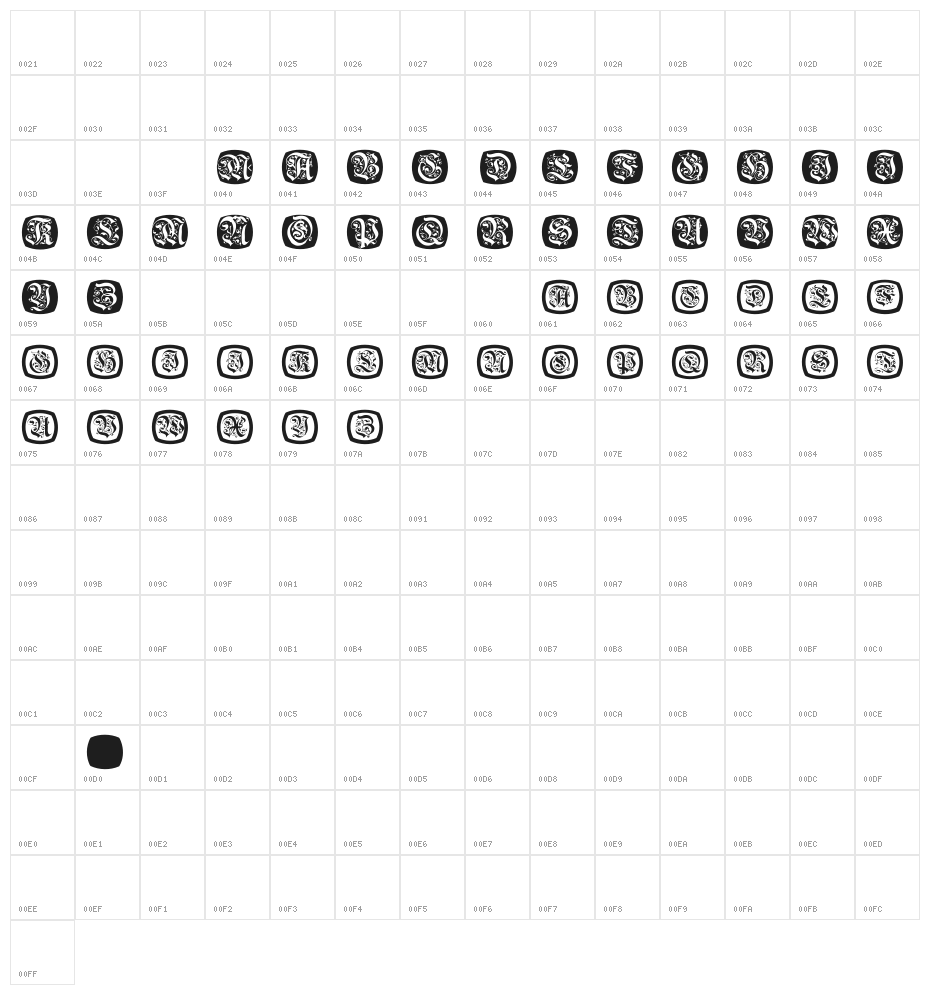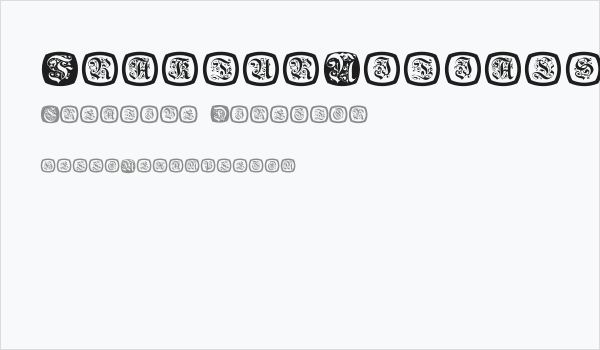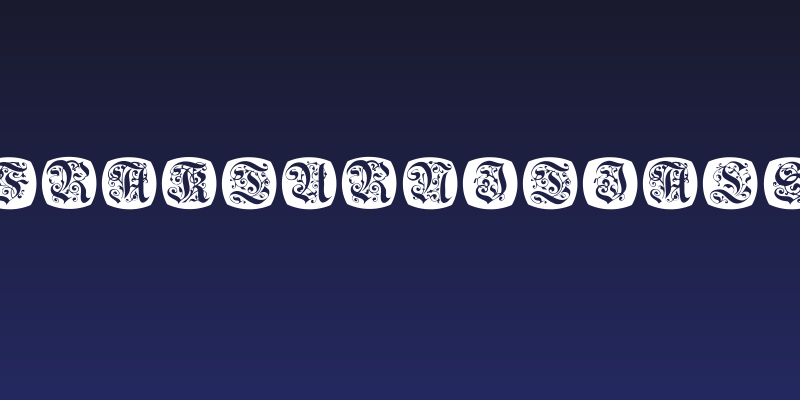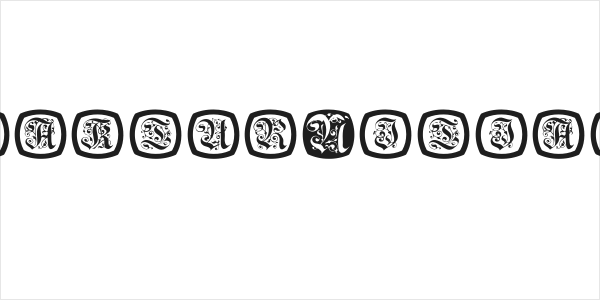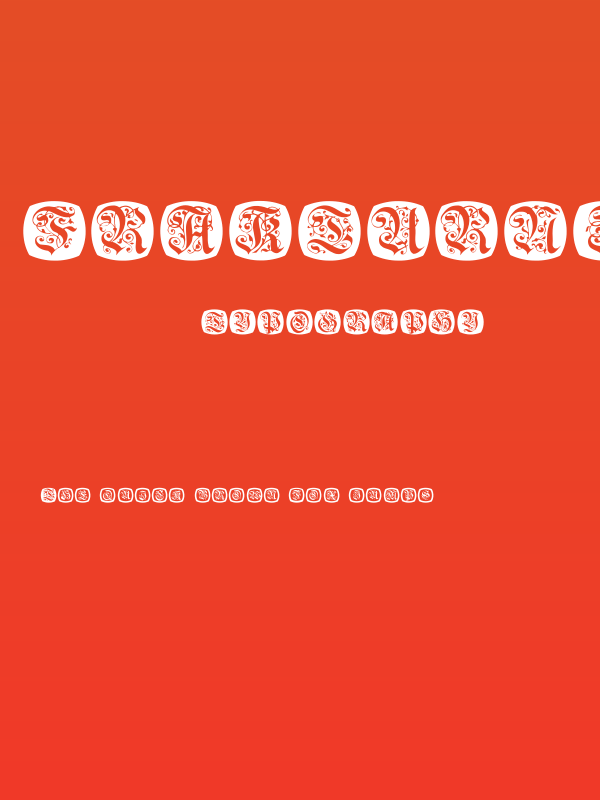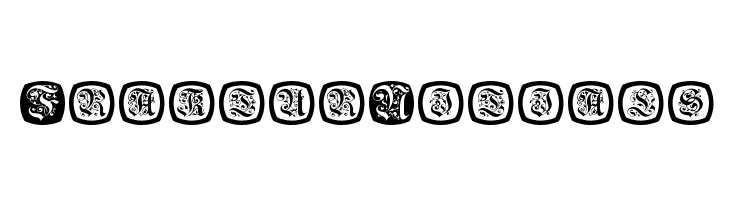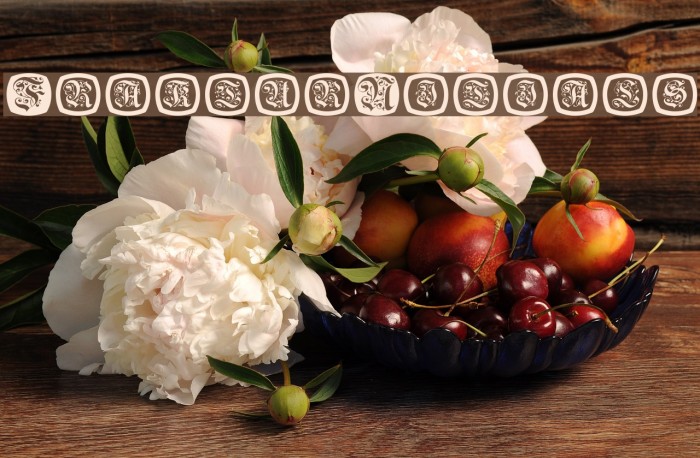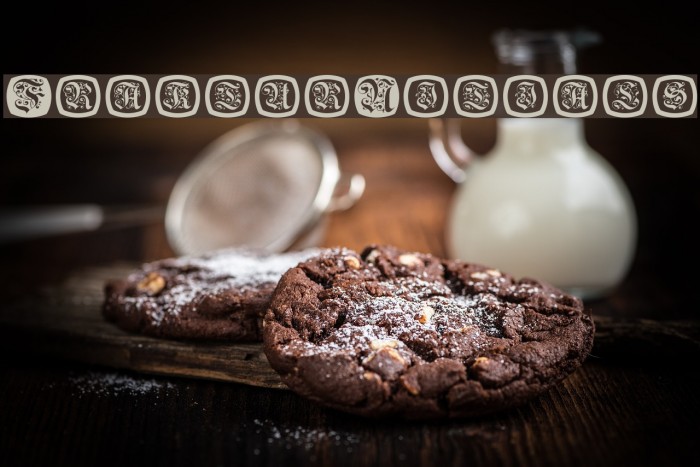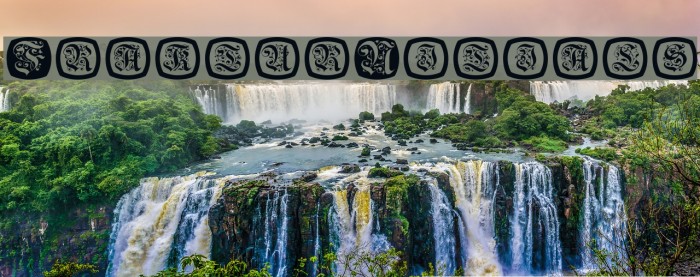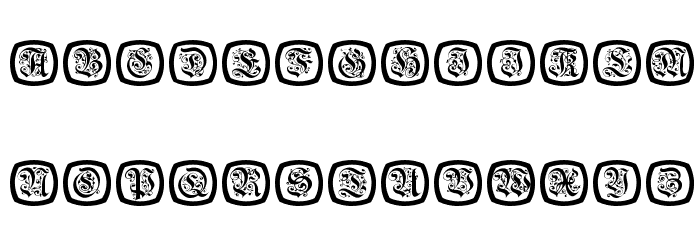
FrakturNitials Font
FrakturNitials Description
This font features an ornate and intricate design, reminiscent of traditional blackletter styles. Each character is enclosed in a square, giving it a distinct and bold appearance. The letters are highly decorative, with elaborate swirls and embellishments that add a sense of historical elegance. The overall aesthetic is gothic and medieval, making it suitable for projects that require a touch of vintage sophistication. The font's unique style makes it stand out, perfect for creating eye-catching titles or logos that demand attention.
| Categories | Gothic |
| Overall Style | Vintage |
| Use Case | Logos, Headlines, Decorative text |
| Proposed Projects | Ideal for vintage-themed designs, historical documents, book covers, or branding that requires a gothic touch. |